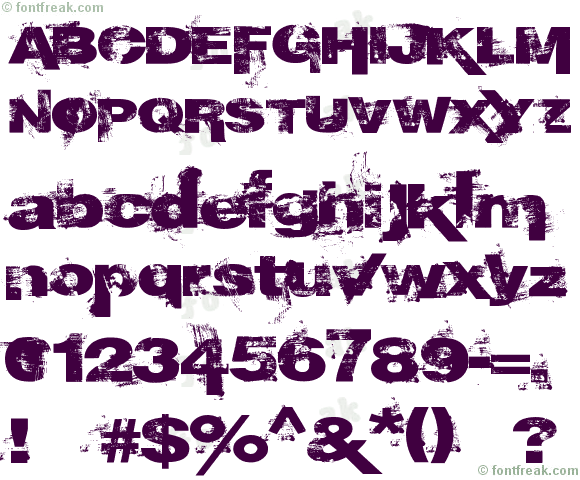
EpoXY histoRy
About EpoXY histoRy
The EpoXY histoRy font by Gyom Seguin is a striking display typeface that blends a sense of nostalgia with contemporary flair. This unique font, released in 2007, belongs to the decorative category, characterized by its bold and expressive letterforms. It showcases a varied stroke weight that adds depth and visual interest, while its contrasting elements create an eye-catching appearance. The spacing between characters is thoughtfully designed, allowing for optimal readability without sacrificing style. The font features artistic flourishes that evoke a sense of history, making it ideal for projects where a touch of vintage charm is desired.
EpoXY histoRy is particularly well-suited for a range of creative applications. It can elevate wedding invitations with its distinctive character, lending an air of elegance to the occasion. Additionally, it works wonderfully for movie posters, capturing attention with its dramatic flair and unique visual identity. Restaurant menus can also benefit from this font, as it can infuse a sense of personality and style, enticing diners with its creative presentation. Graphic designers, small business owners, and content creators will find this font indispensable for branding projects, promotional materials, or any medium that requires a standout typographic choice.
What sets the EpoXY histoRy font apart is its ability to fuse historical influences with modern design sensibilities. This font not only invites viewers to engage with the text but also encourages a deeper appreciation for the art of typography. As a freeware option, it ensures that creatives from all backgrounds can access and utilize its unique features. For those seeking a distinctive typeface, the EpoXY histoRy font free download offers an exciting opportunity to enhance their projects with personality and flair.